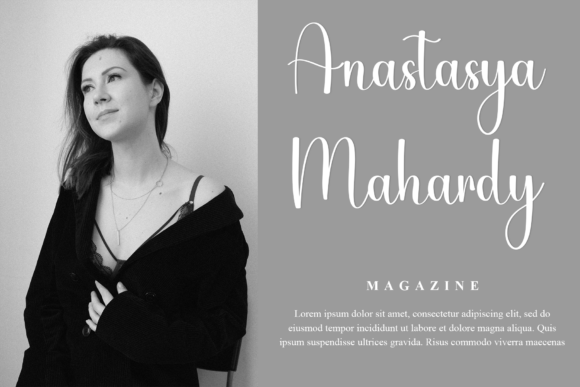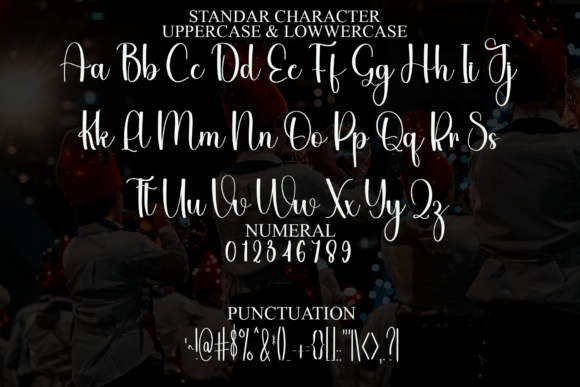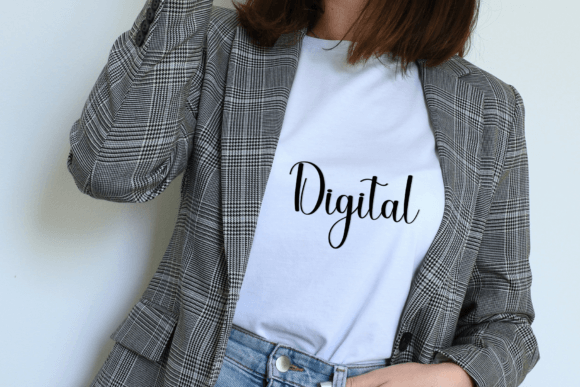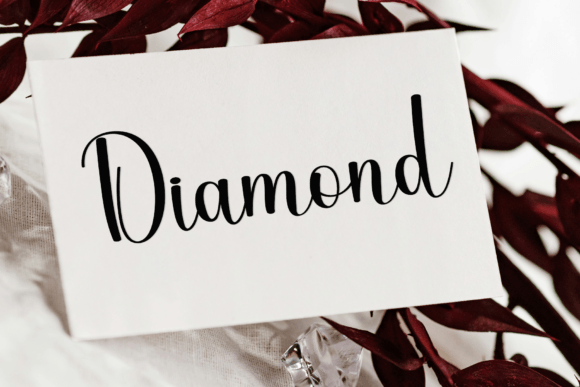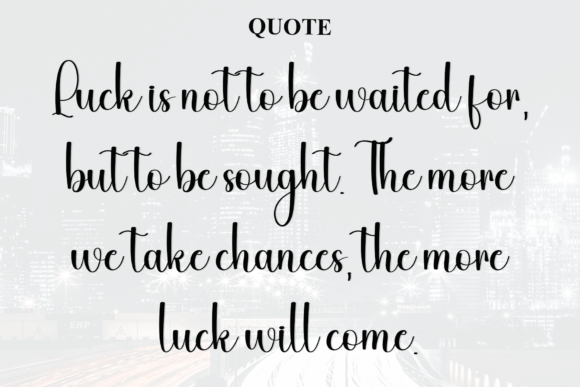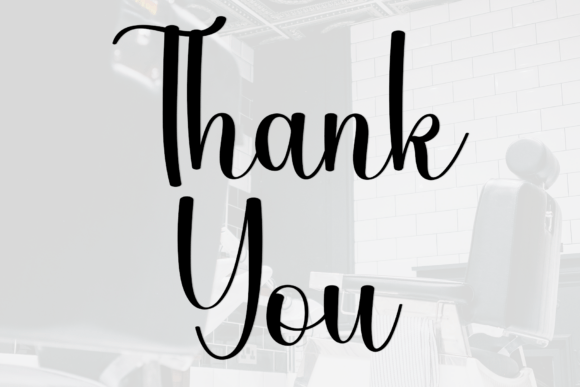
Introducing Hairstylist Font: Elevate Your Designs with Elegance and Charm
Are you a designer or crafter looking for a font that exudes elegance and sophistication? Look no further than Hairstylist Font, a lovely script font that is sure to elevate your designs to the next level. With its smooth, flowing letters, Hairstylist Font is perfect for creating beautiful invitations, logos, and other designs that require a touch of beauty and charm.
What is Hairstylist Font?
Hairstylist Font is a script font that features smooth, cursive letters that are both elegant and stylish. The font is designed to be highly versatile, making it suitable for a wide range of design applications, from wedding invitations and party flyers to logos and branding materials. Whether you’re a professional designer or a crafty DIY enthusiast, Hairstylist Font is a great choice for adding a touch of sophistication to your designs.
Key Features of Hairstylist Font
- Smooth, flowing letters: Hairstylist Font features smooth, cursive letters that are both elegant and stylish.
- Highly versatile: The font is suitable for a wide range of design applications, from invitations and logos to branding materials and more.
- Elegant and sophisticated: Hairstylist Font is perfect for designs that require a touch of elegance and sophistication.
- Easy to read: Despite its elegant appearance, Hairstylist Font is easy to read, making it suitable for use in a variety of design applications.
Uses for Hairstylist Font
Hairstylist Font is a highly versatile font that can be used in a wide range of design applications. Here are just a few ideas to get you started:
- Wedding invitations: Hairstylist Font is perfect for creating beautiful, elegant wedding invitations that set the tone for a sophisticated and stylish wedding.
- Logos and branding materials: The font is also great for creating logos and branding materials that require a touch of elegance and sophistication.
- Party flyers: Hairstylist Font is a great choice for creating party flyers that need to stand out from the crowd.
- Social media graphics: The font can also be used to create social media graphics that are both elegant and engaging.
Tips for Using Hairstylist Font
Here are a few tips for using Hairstylist Font in your designs:
- Use it sparingly: While Hairstylist Font is elegant and sophisticated, it can be overwhelming if used too much. Use it sparingly to add a touch of elegance to your designs.
- Pair it with a sans-serif font: Pairing Hairstylist Font with a sans-serif font can create a beautiful contrast that adds visual interest to your designs.
- Experiment with different colors: Hairstylist Font looks great in a variety of colors, so don’t be afraid to experiment and find the perfect color for your design.
Hairstylist Font is a beautiful script font that is perfect for designers and crafters looking to add a touch of elegance and sophistication to their designs. With its smooth, flowing letters and highly versatile design, Hairstylist Font is suitable for a wide range of design applications, from wedding invitations and logos to party flyers and social media graphics. Whether you’re a professional designer or a crafty DIY enthusiast, Hairstylist Font is a great choice for elevating your designs to the next level.
- What is Hairstylist Font?
- Hairstylist Font is a lovely script font with smooth, flowing letters that look elegant and stylish.
- What is Hairstylist Font used for?
- Hairstylist Font is perfect for invitations, logos, or any design that needs a touch of beauty and charm.